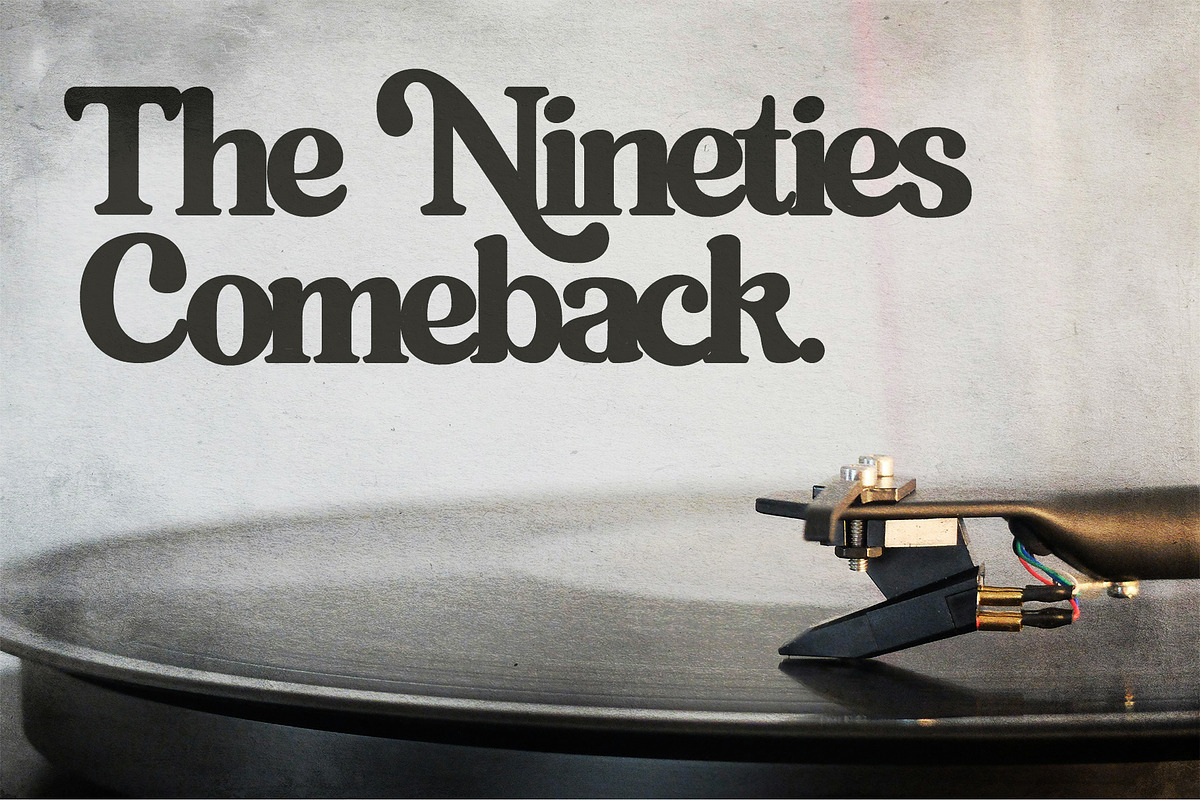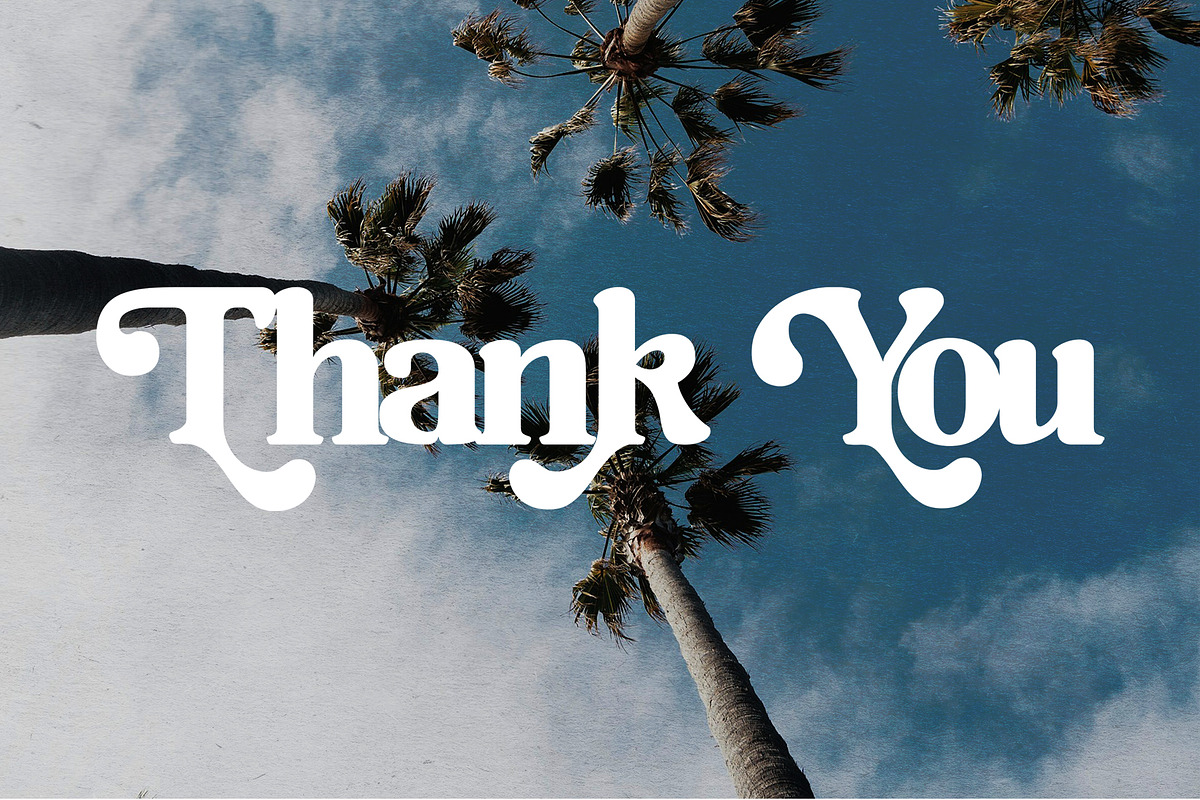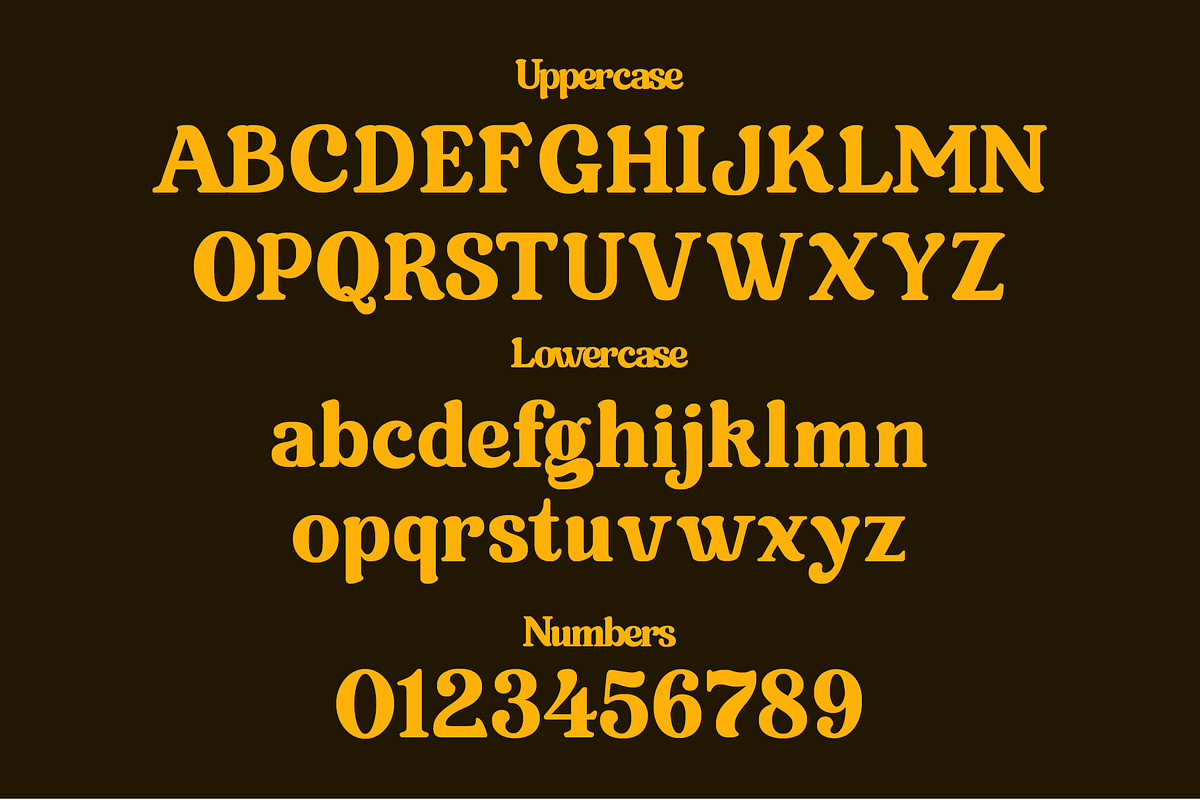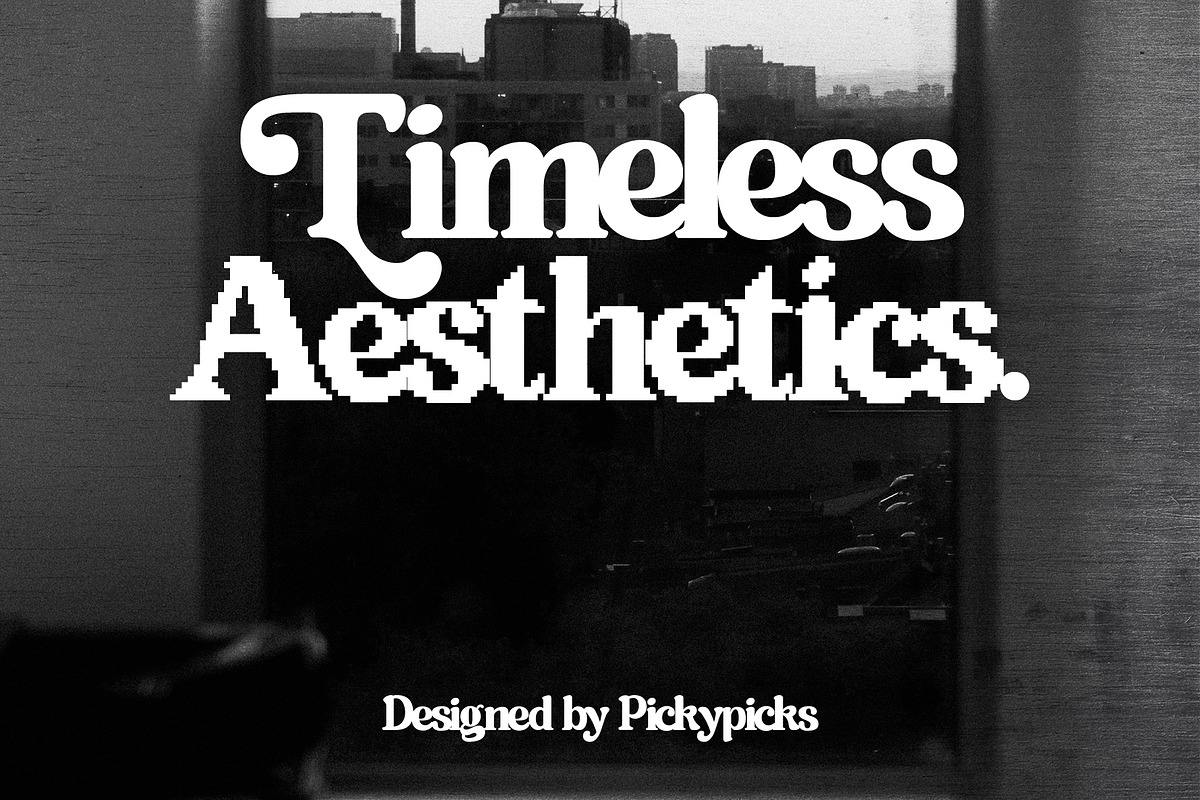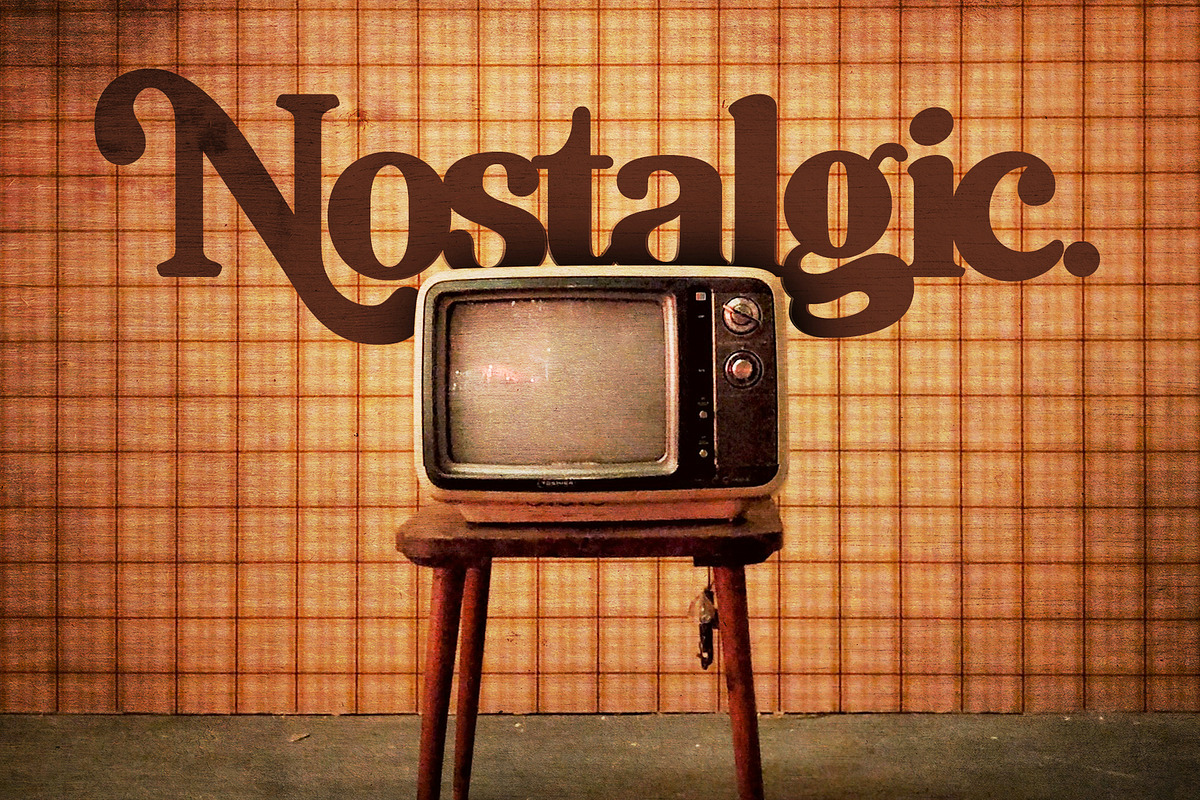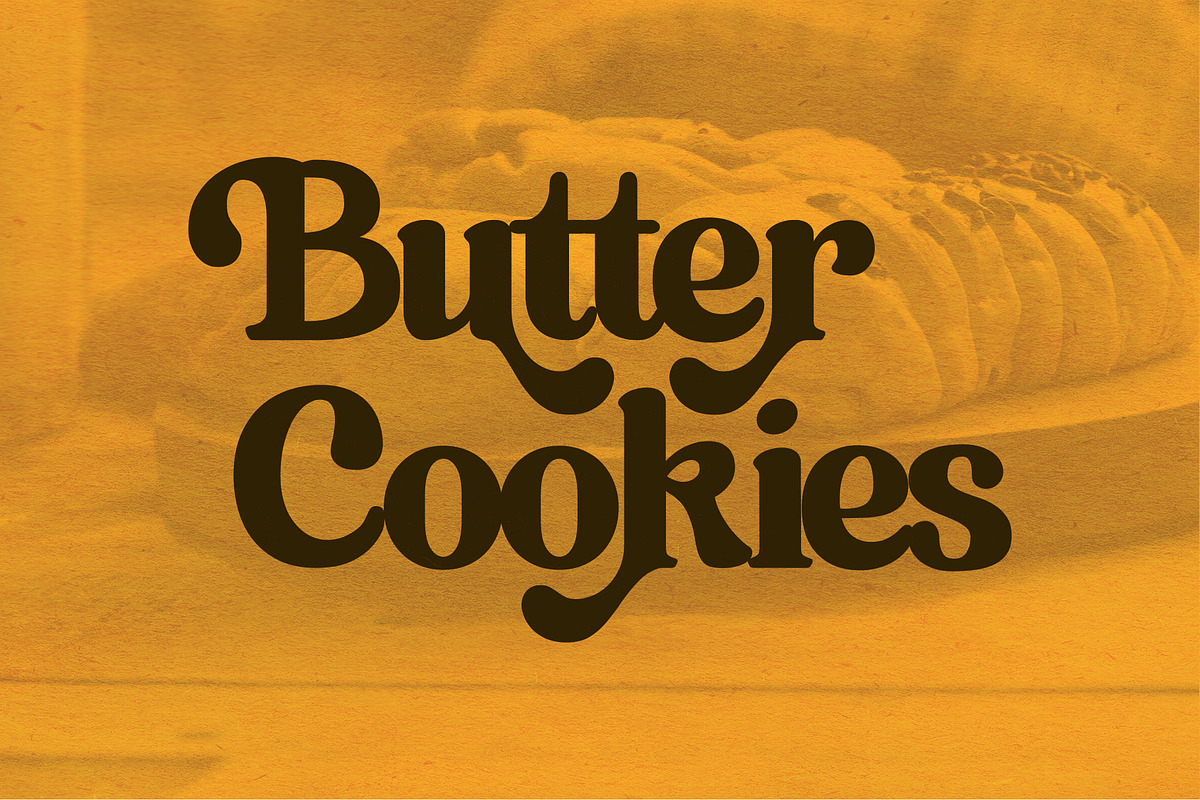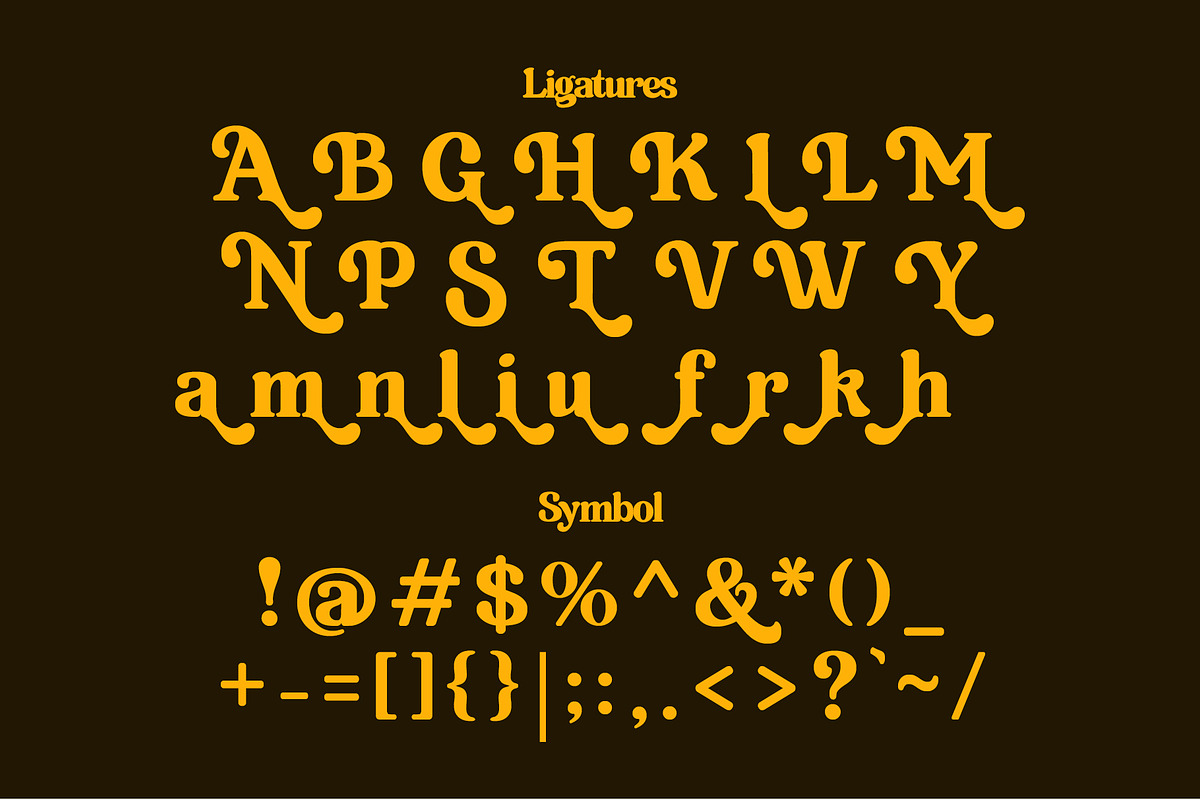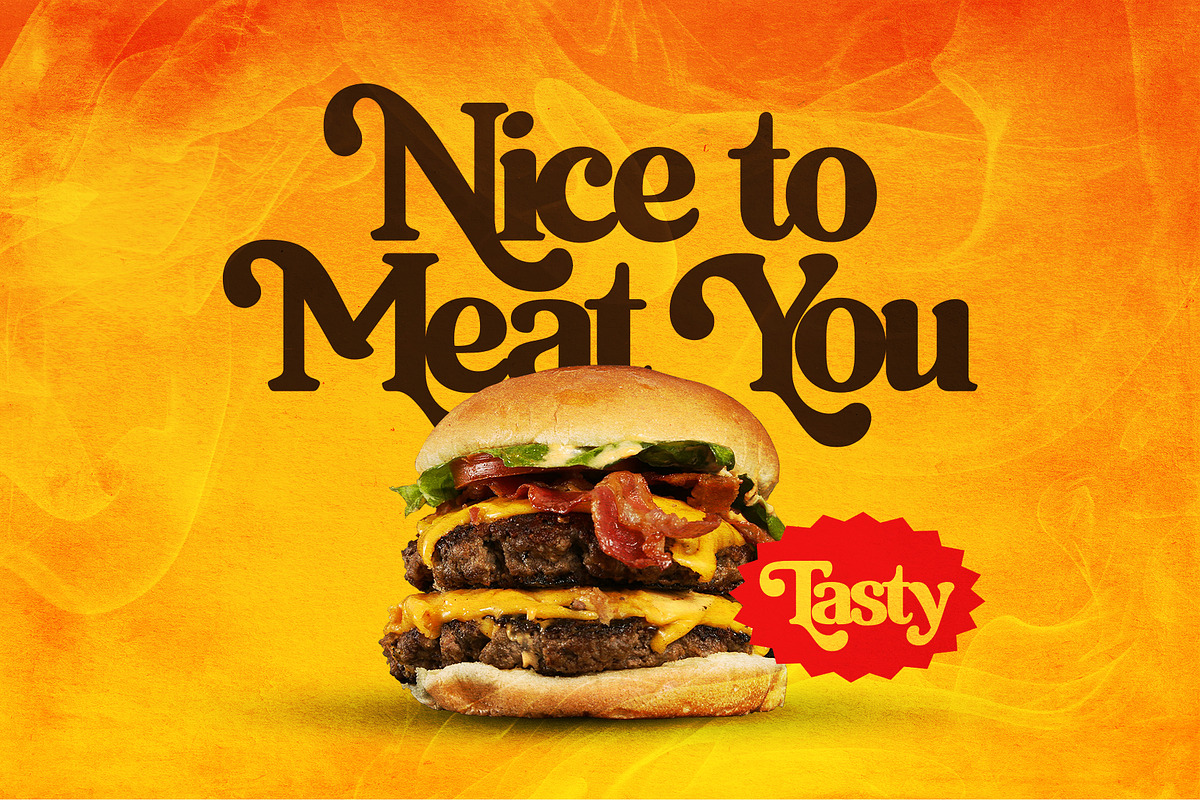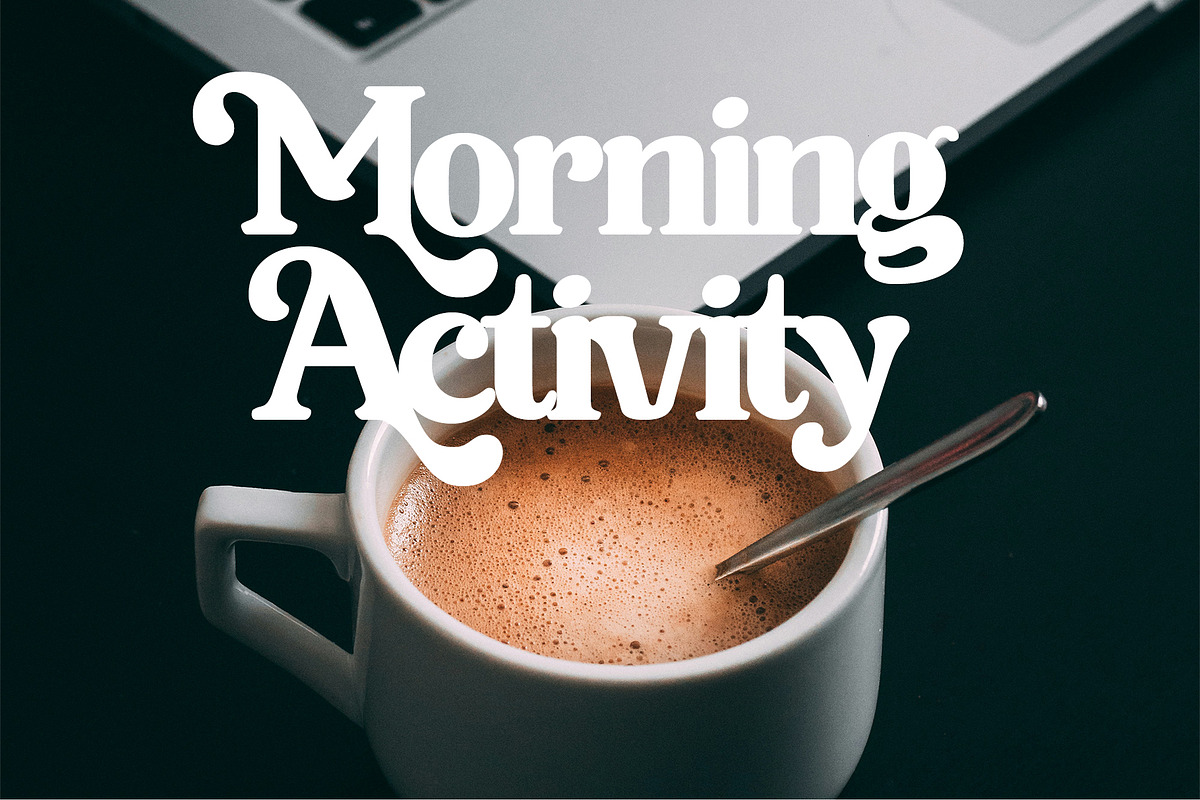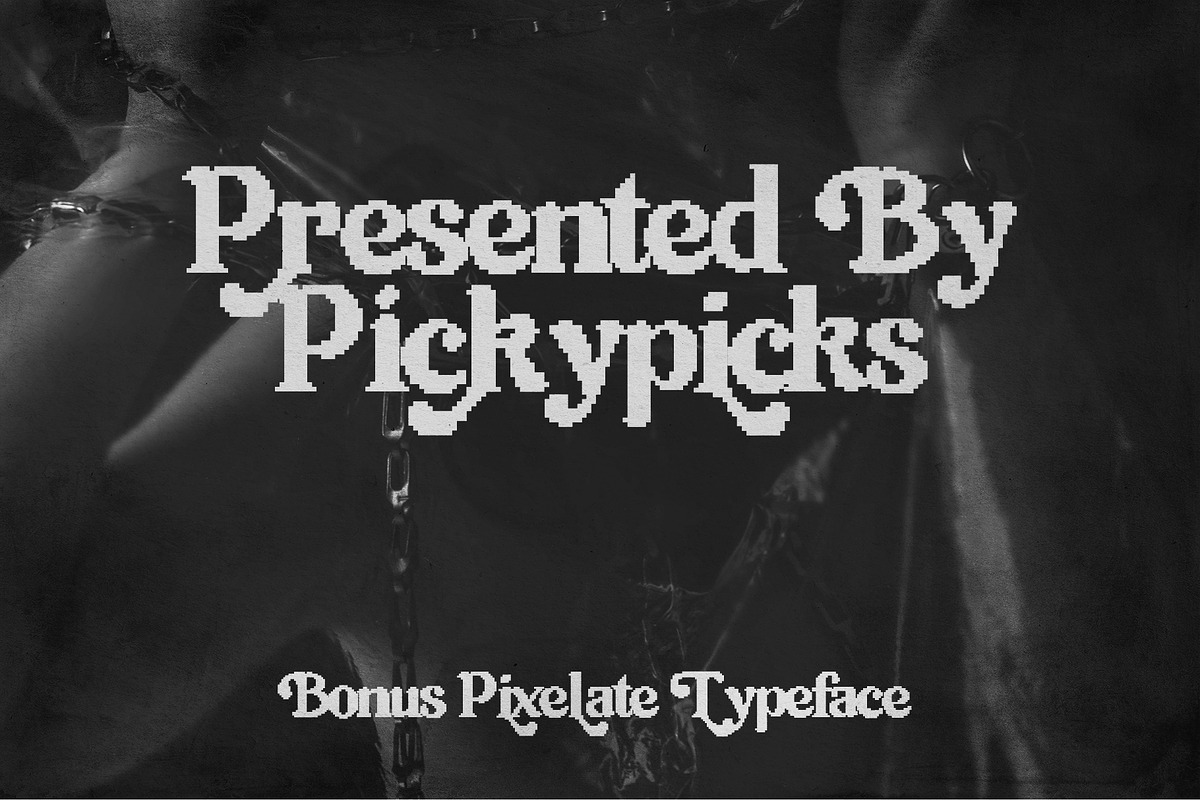
Meraki – Retro Serif Display Font
Bring a bold, nostalgic energy to your designs with Meraki, a display serif font inspired by the expressive typography of the 1990s. Featuring high-contrast strokes and elegant, curvaceous terminals, this font is crafted to make a statement in modern editorial and branding projects.
Why you'll love it:
Unique 90s Aesthetic: Perfectly balances vintage curves with a sharp, modern edge.
High Impact: Specifically designed for display use where bold headlines are a priority.
Versatile Branding: Ideal for logo design, magazine headers, and social media content.
Best Used For: Branding, apparel, posters, and web headers.